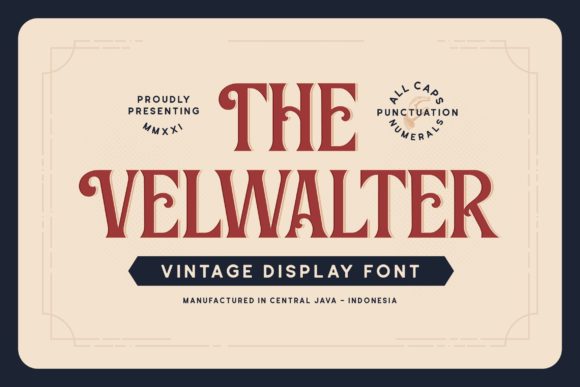
Immerse yourself in the captivating world of Velwalter, a vintage-styled display font that exudes elegance and charm. Its carefully crafted curves and intricate details will add a touch of sophistication to any design project. Whether you're creating logos, posters, invitations, or social media graphics, Velwalter will make your designs stand out with its unique personality.
With its versatile nature, Velwalter complements a wide range of design styles, from classic and retro to modern and contemporary. Its distinctive character adds a touch of authenticity and timeless appeal to any project. Unleash your creativity and let Velwalter transport your designs to a bygone era, while still maintaining a contemporary edge.
Velwalter is the perfect choice for designers seeking a font that embodies both vintage charm and modern elegance. Its carefully crafted characters dance across the page, evoking a sense of nostalgia and romance. Allow Velwalter to weave its magic into your designs and captivate your audience with its timeless beauty.
So, embrace the allure of Velwalter and elevate your designs to new heights. Let its vintage charm infuse your projects with a sense of authenticity and timeless appeal. Transform your creative visions into captivating masterpieces with Velwalter, the font that bridges the gap between the past and the present.